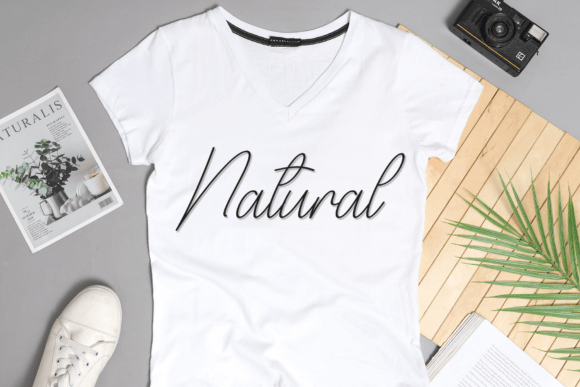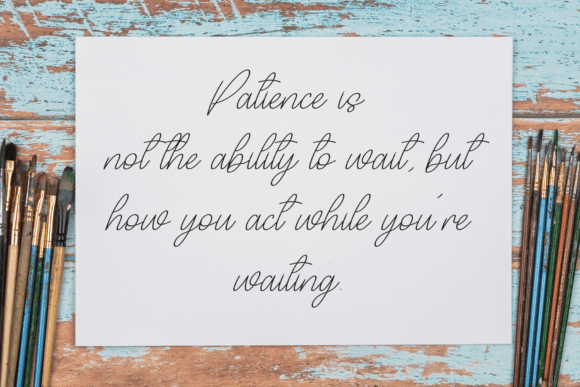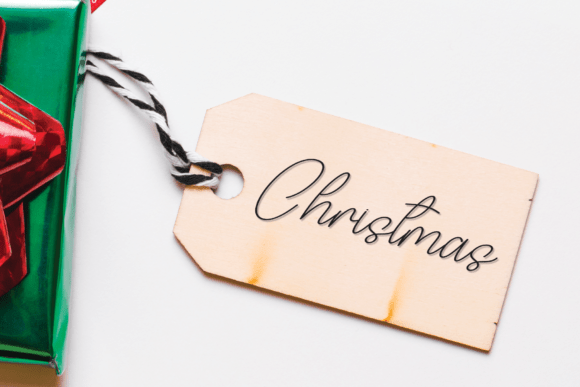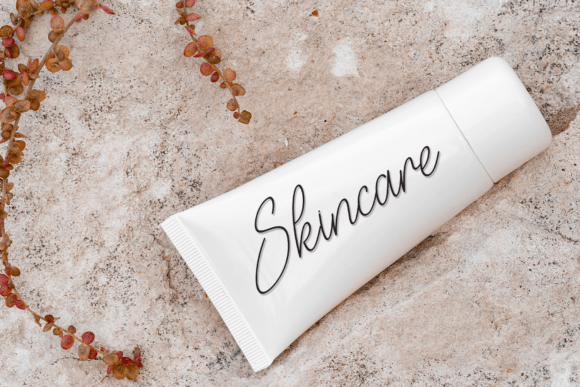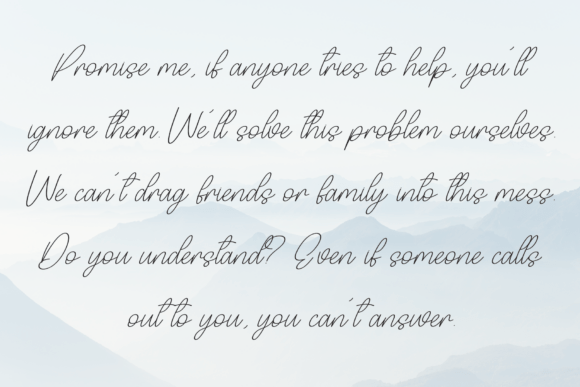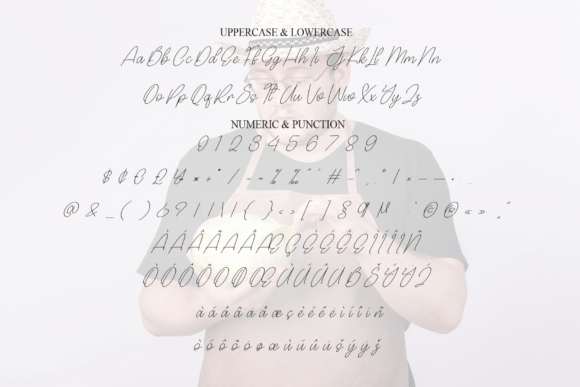
Introducing Bigboy Font: Elevate Your Designs with Extraordinary Style
Are you tired of using the same old fonts in your designs? Look no further! Bigboy Font is here to revolutionize the way you create, with a wide range of special creative products that will give you an extraordinary experience. Our latest style letters are perfect for various design projects, from wall displays and wedding invitations to social media post logos, advertisements, product packaging, and more.
Unleash Your Creativity with Bigboy Font
Bigboy Font offers a unique and stylish handwriting experience that will take your designs to the next level. Whether you’re a designer, crafter, or DIY enthusiast, our font is perfect for anyone looking to add a touch of elegance and sophistication to their work. With Bigboy Font, you can create stunning visual content that will leave a lasting impression on your audience.
Bigboy Font is incredibly versatile and can be used for a wide range of design projects, including:
- Wall displays: Create stunning wall art, posters, and signs that will grab attention.
- Wedding invitations: Add a touch of elegance and sophistication to your wedding stationery.
- Social media post logos: Elevate your social media presence with eye-catching logos and graphics.
- Advertisements: Create effective and engaging ads that will drive results.
- Product packaging: Stand out in a crowded market with unique and stylish packaging designs.
- Product designs: Add a personal touch to your products with custom designs and labels.
- Labels: Create professional-looking labels for your products or business.
- Photography: Add a touch of style to your photos with custom watermarks and overlays.
- Invitations: Create stunning invitations for special occasions, such as birthdays, baby showers, and more.
- Stationery: Elevate your stationery with custom designs, letters, and graphics.
Why Choose Bigboy Font?
So, why choose Bigboy Font over other fonts on the market? Here are just a few reasons:
- Unique style: Our font offers a fresh and unique style that will set you apart from the crowd.
- High-quality: Our font is of the highest quality, ensuring crisp and clear results in all your designs.
- Versatile: Our font can be used for a wide range of design projects, making it a valuable addition to your design toolkit.
In conclusion, Bigboy Font is the perfect choice for designers, crafters, and DIY enthusiasts looking to elevate their designs with a unique and stylish handwriting experience. With its high-quality file package, compatibility with popular design software, and endless design possibilities, Bigboy Font is sure to become a valuable addition to your design toolkit. So why wait? Get Bigboy Font today and start creating extraordinary designs that will leave a lasting impression!